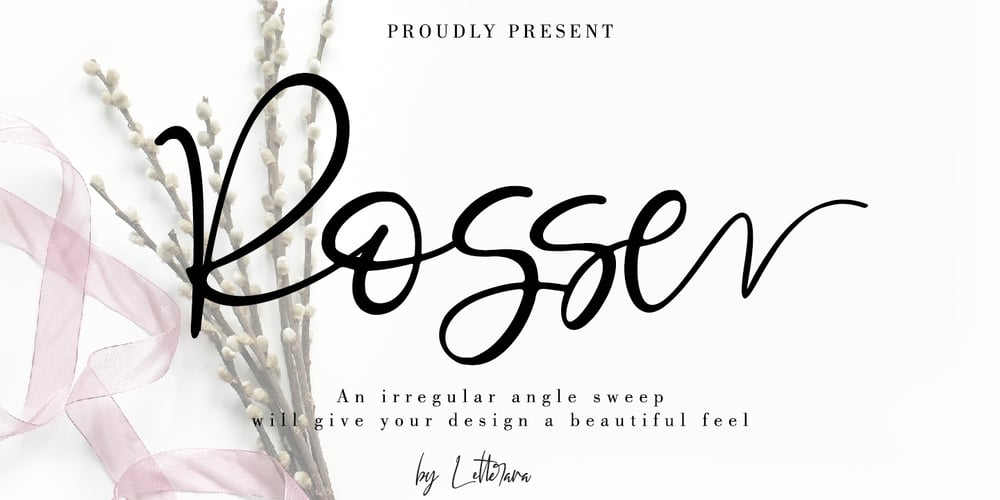
Rosse
Rosse font
Rosse Font Family was designed by Thomas Aradea and published by Letterara. Rosse contains 1 styles and family package options. Rosse features an irregular baseline, making it the perfect font to give your designs a fun and unique feel!